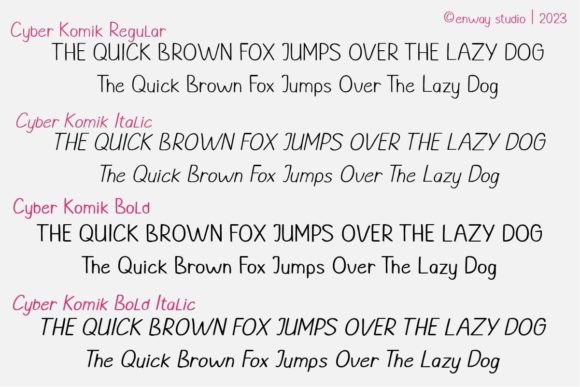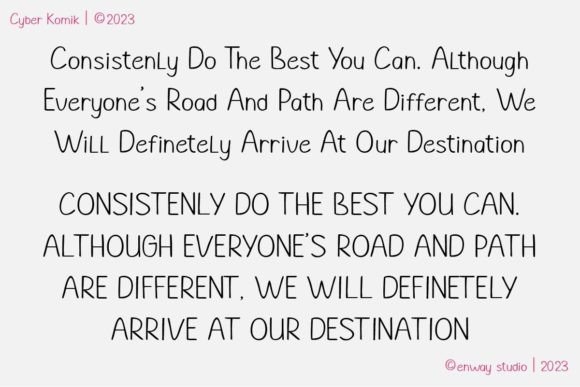
Introduction to Cyber Komik Font
Cyber Komik is a minimalist handwritten font that effortlessly conveys a sense of ease and approachability.
With its clean, flowing lines and uncomplicated style, this font is perfect for adding a personal touch to digital and print projects alike Versatile and chic, Effortless Script is a must-have for any designer.
Cyber Komik Font offers exceptional quality and versatility, making it a valuable addition to your design toolkit. Whether you’re creating for personal projects or commercial use, Cyber Komik Font delivers professional results.